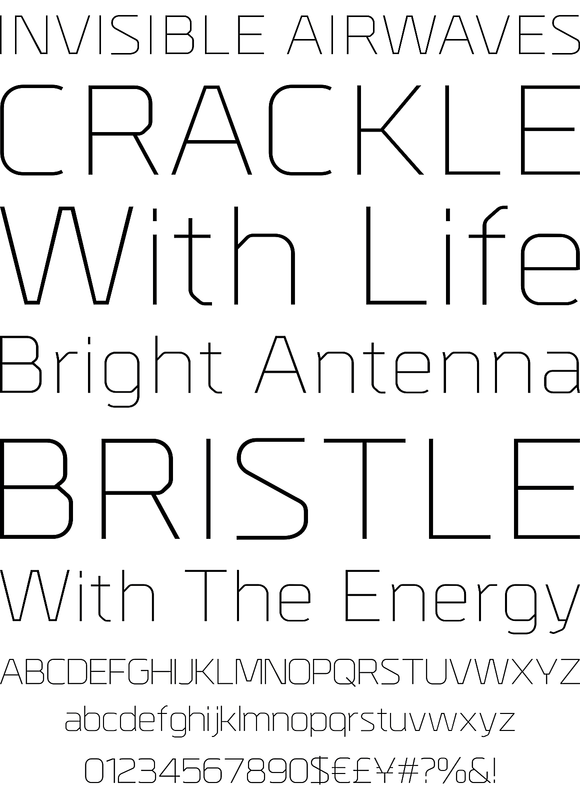
A geometric sans serif with a precise fabricated appearance. Smooth corners are mixed with subtle angles to form a strong, legible typeface ideally suited for a wide range of applications. Details include 6 weights with italics, an extended European character set, manually edited kerning, stylistic alternatives and Opentype features.